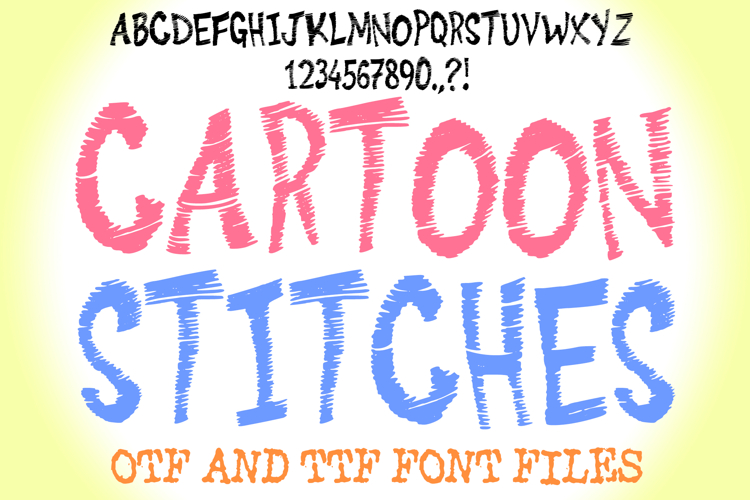
Cartoon Stitched Thread Font is a playful, fabric-inspired typeface with a hand-sewn, embroidery effect. Perfect for craft projects, sewing-themed designs, Circuit and Silhouette crafts, DIY quotes, t-shirts, scrapbooking, and handmade product labels. Its unique stitched look brings a crafty, rustic charm to your creative work.